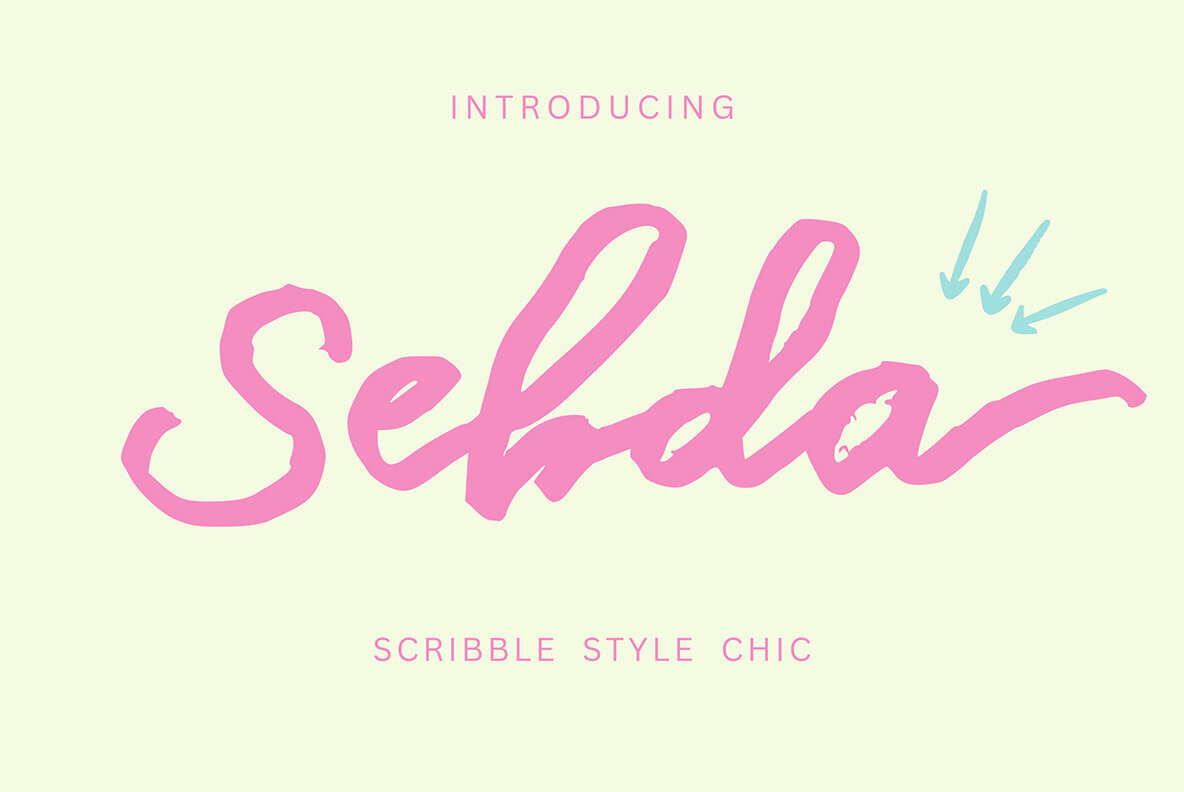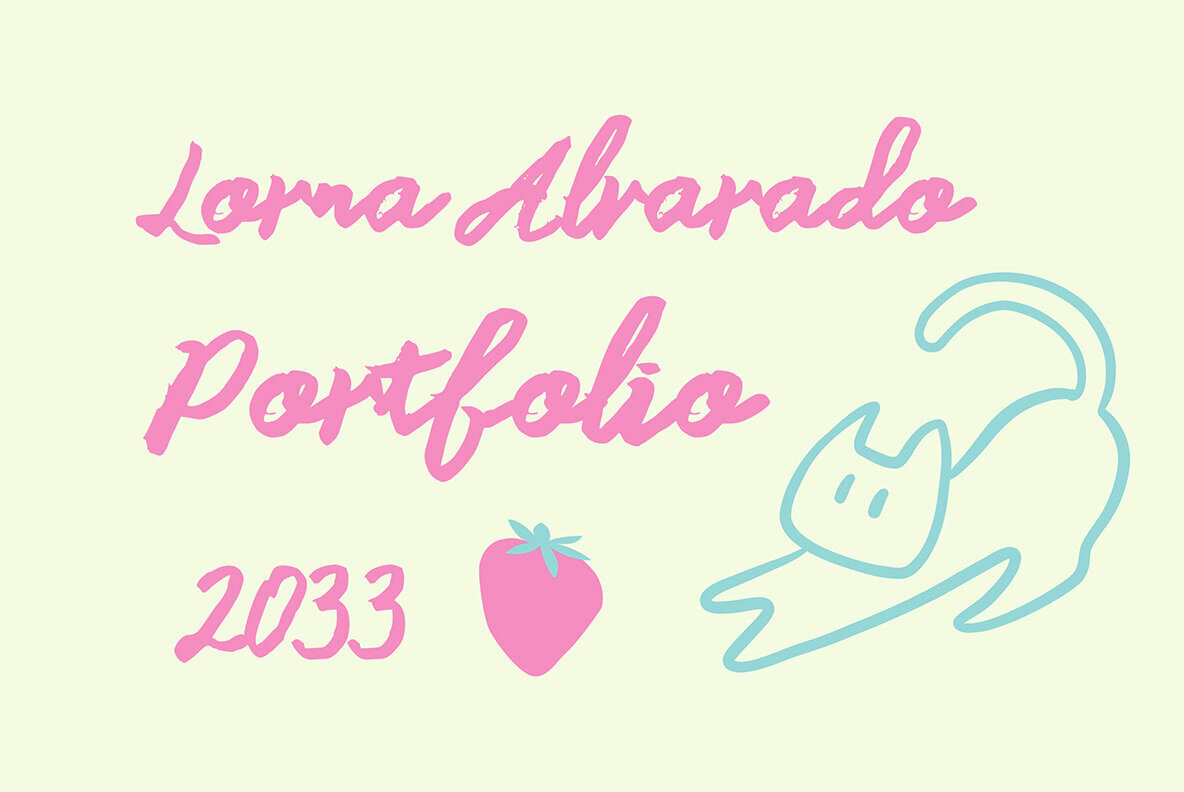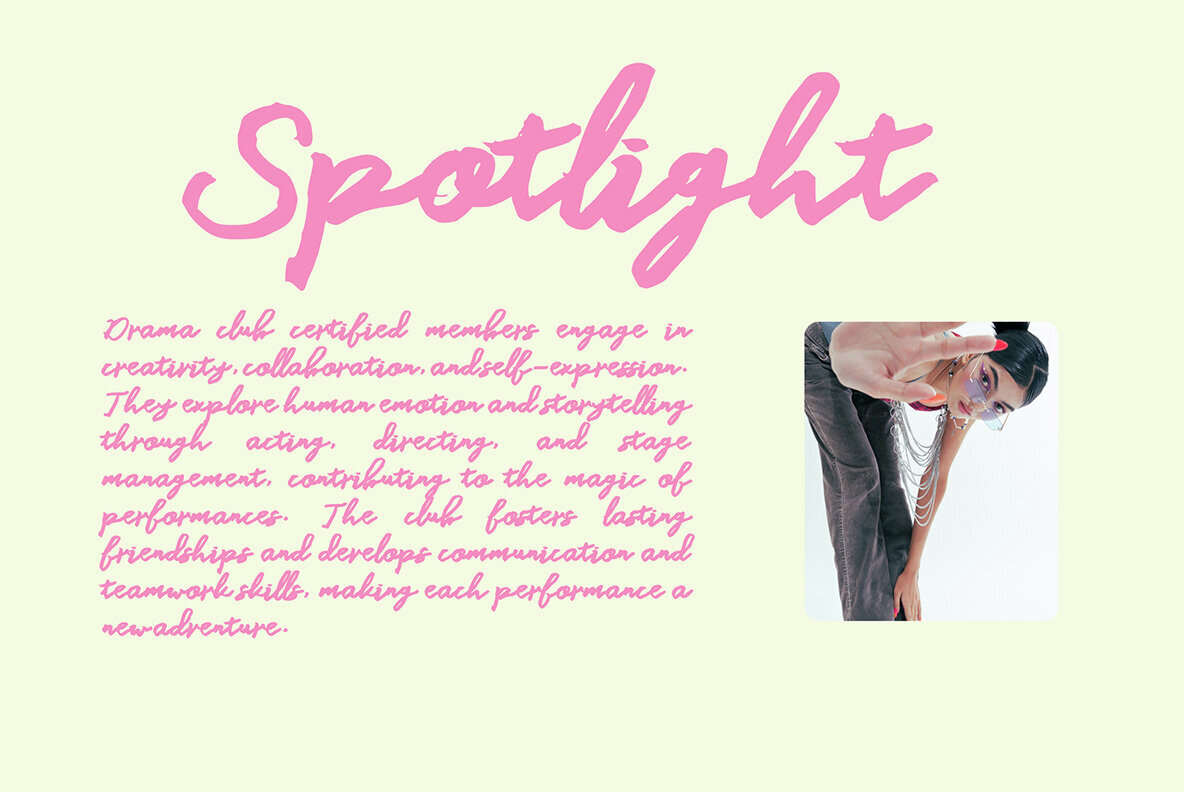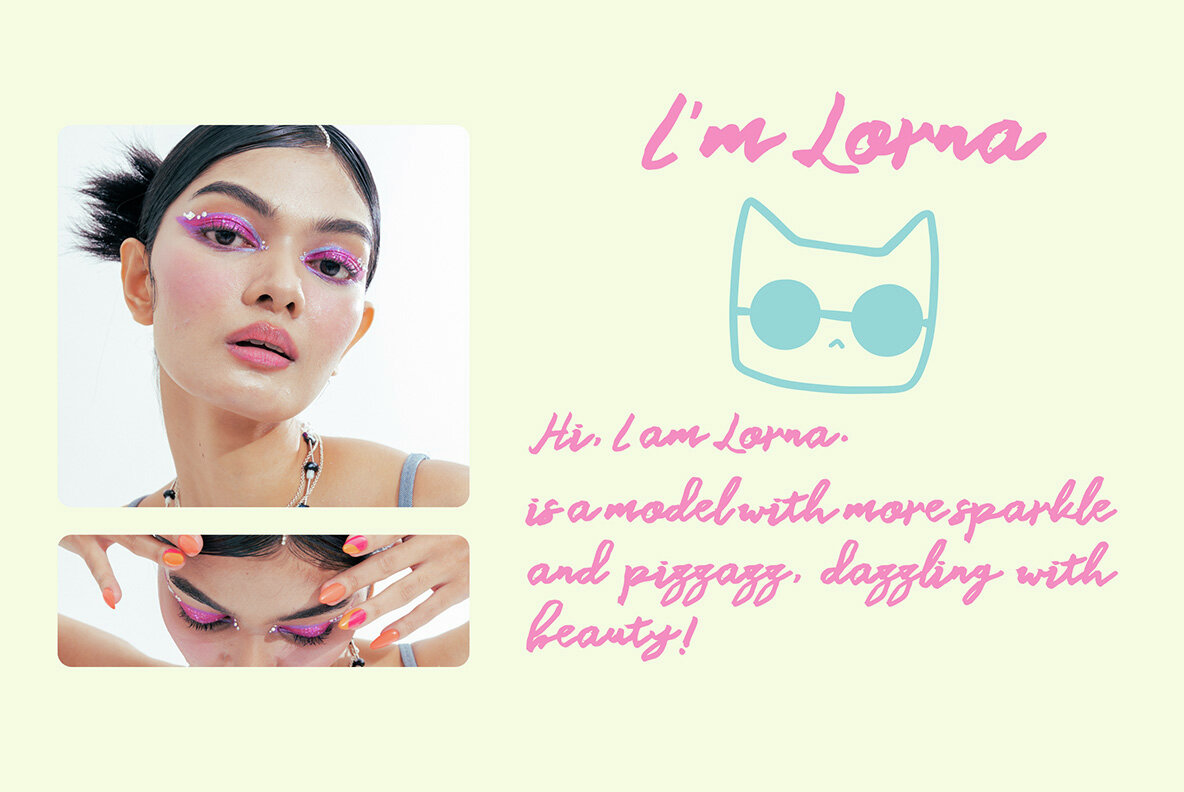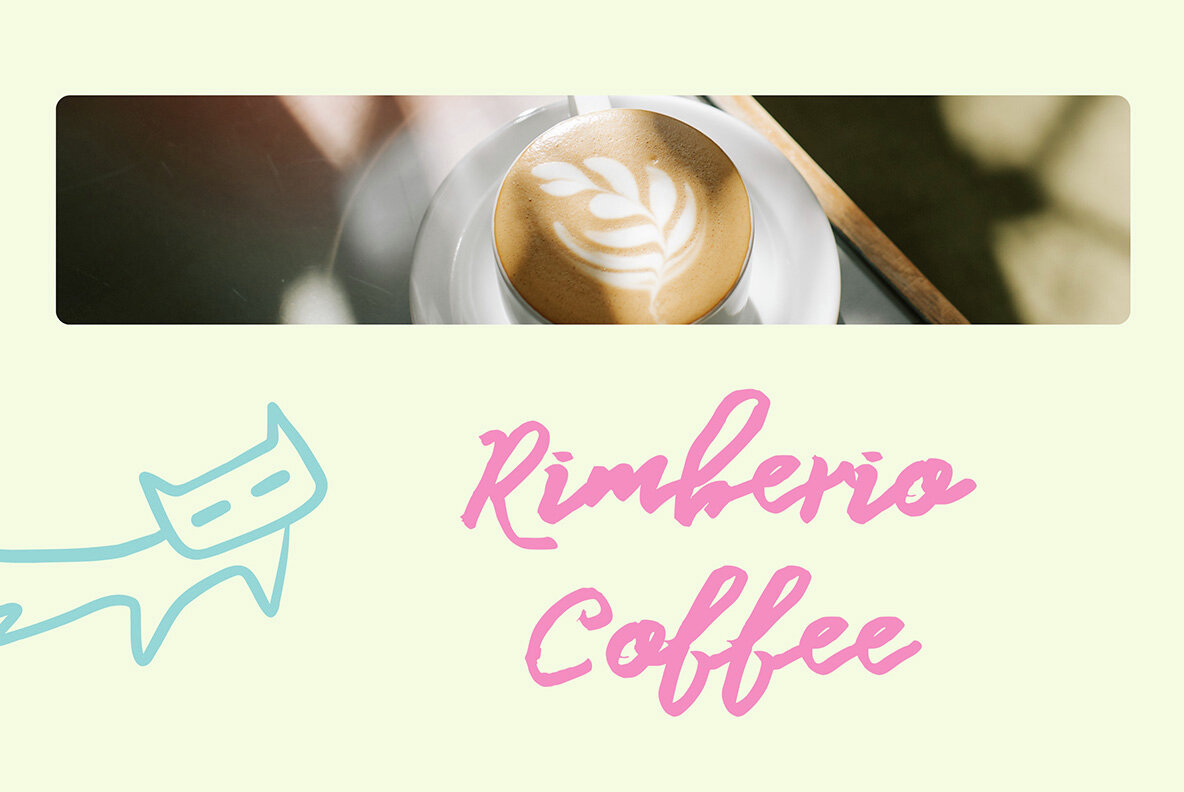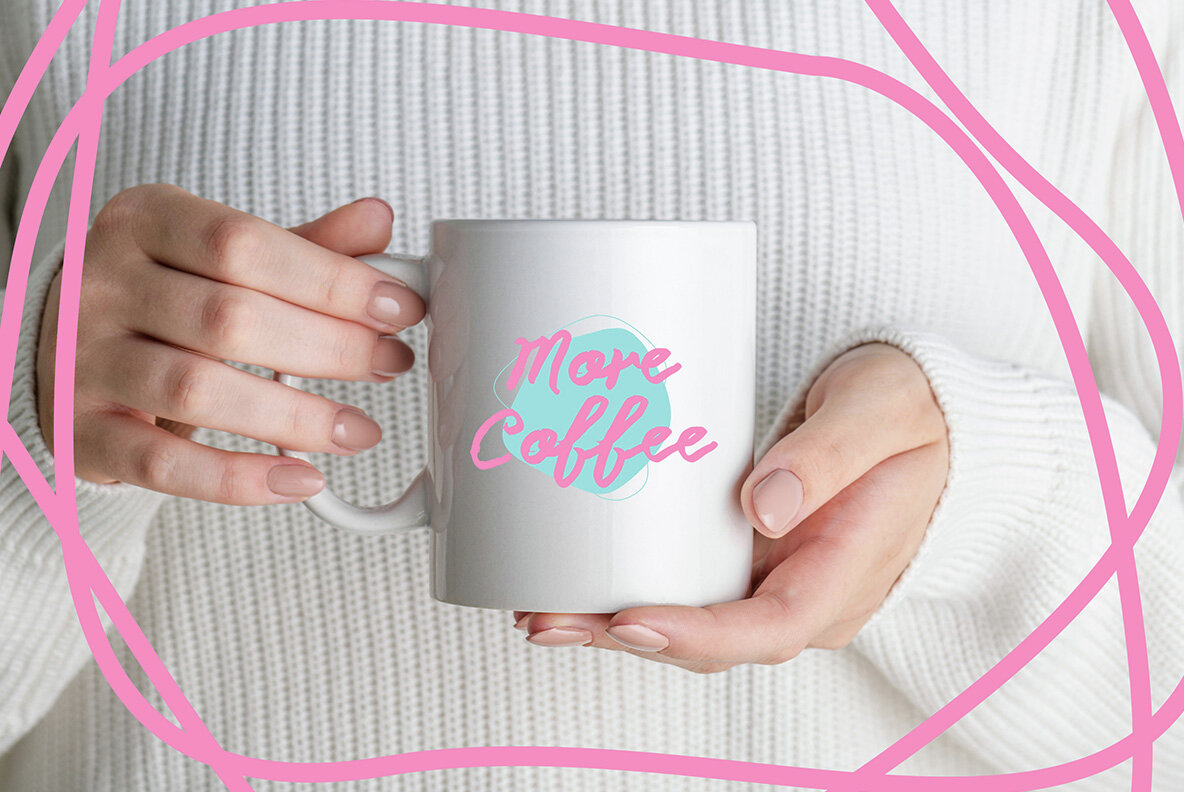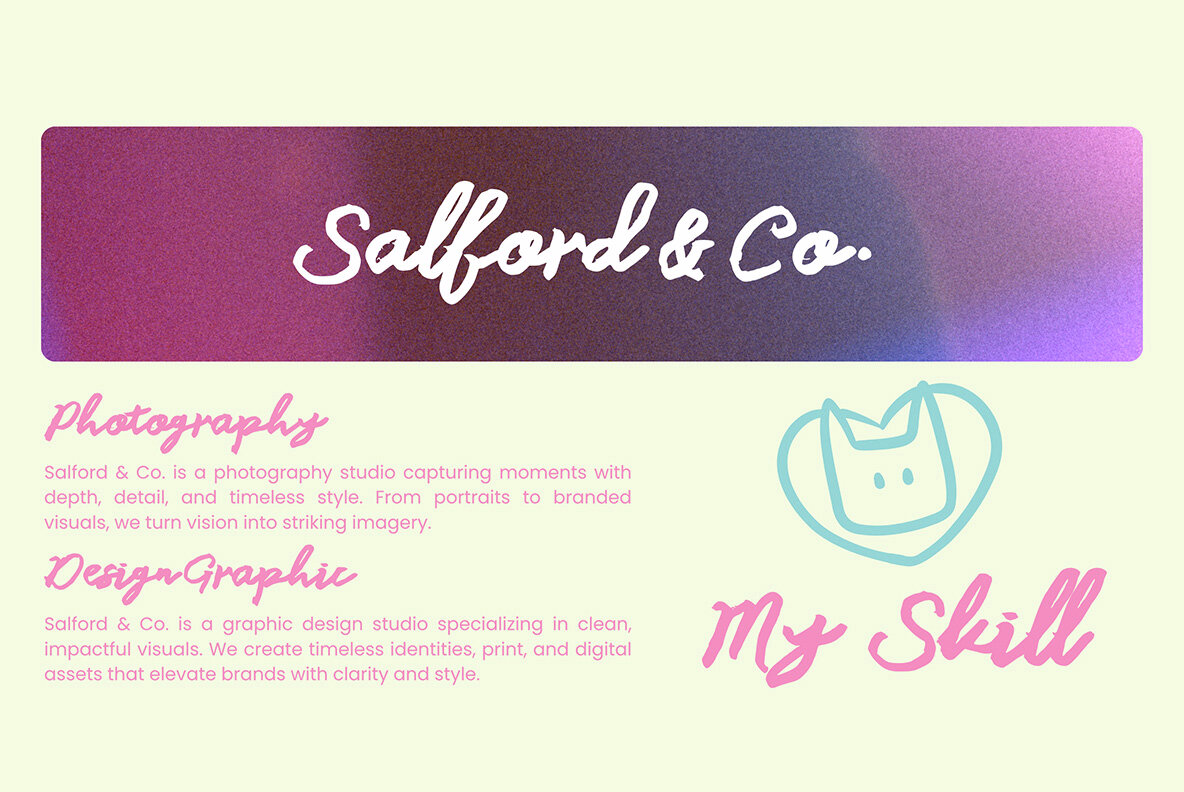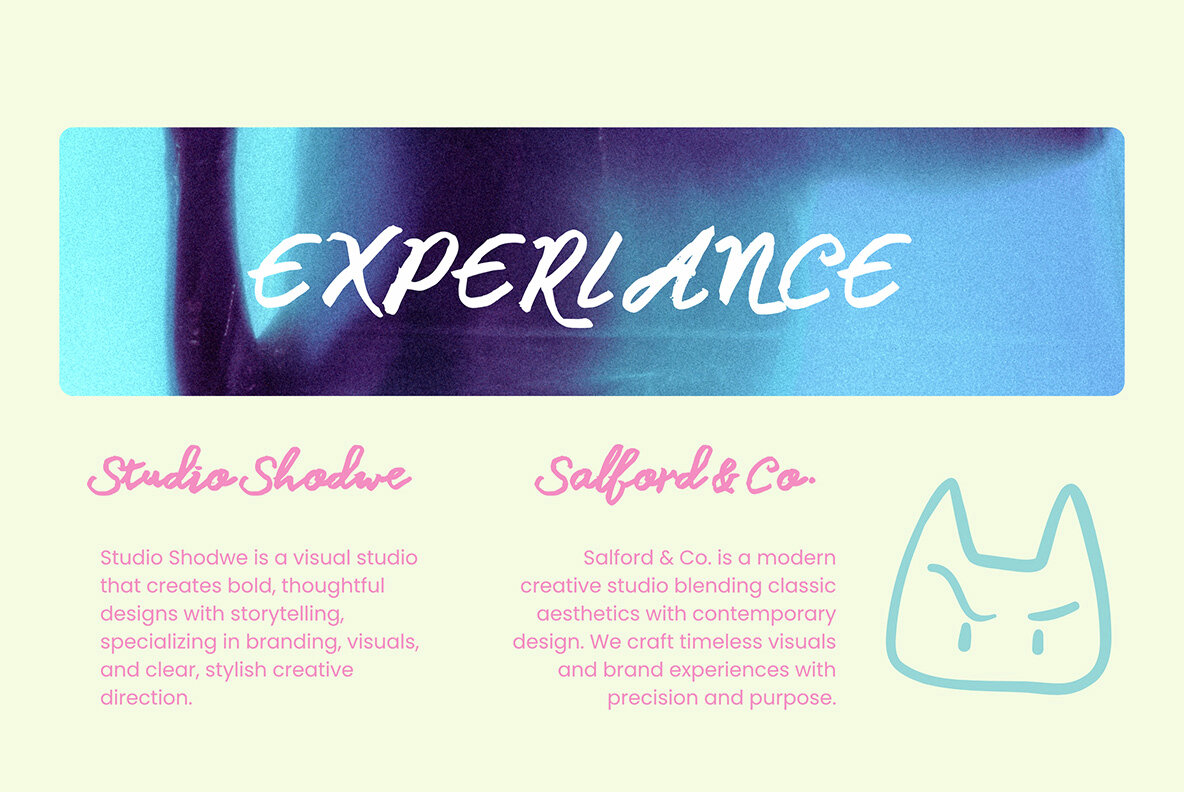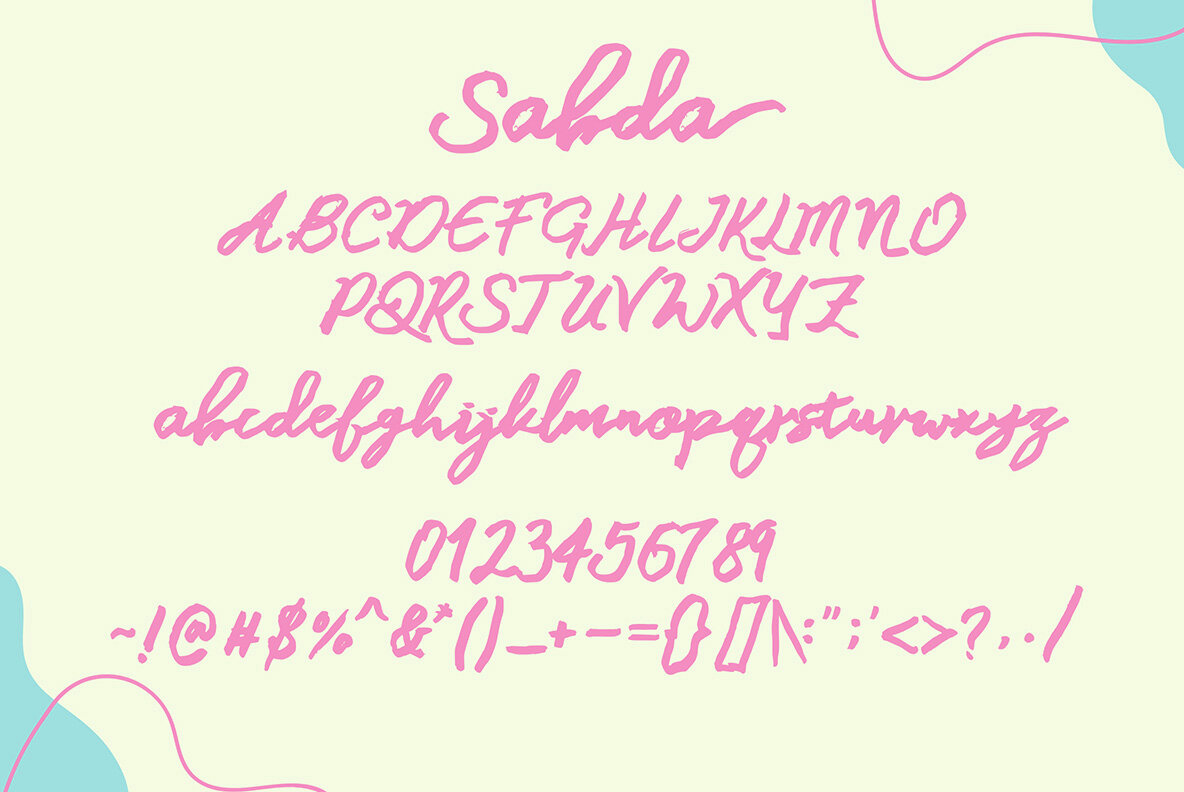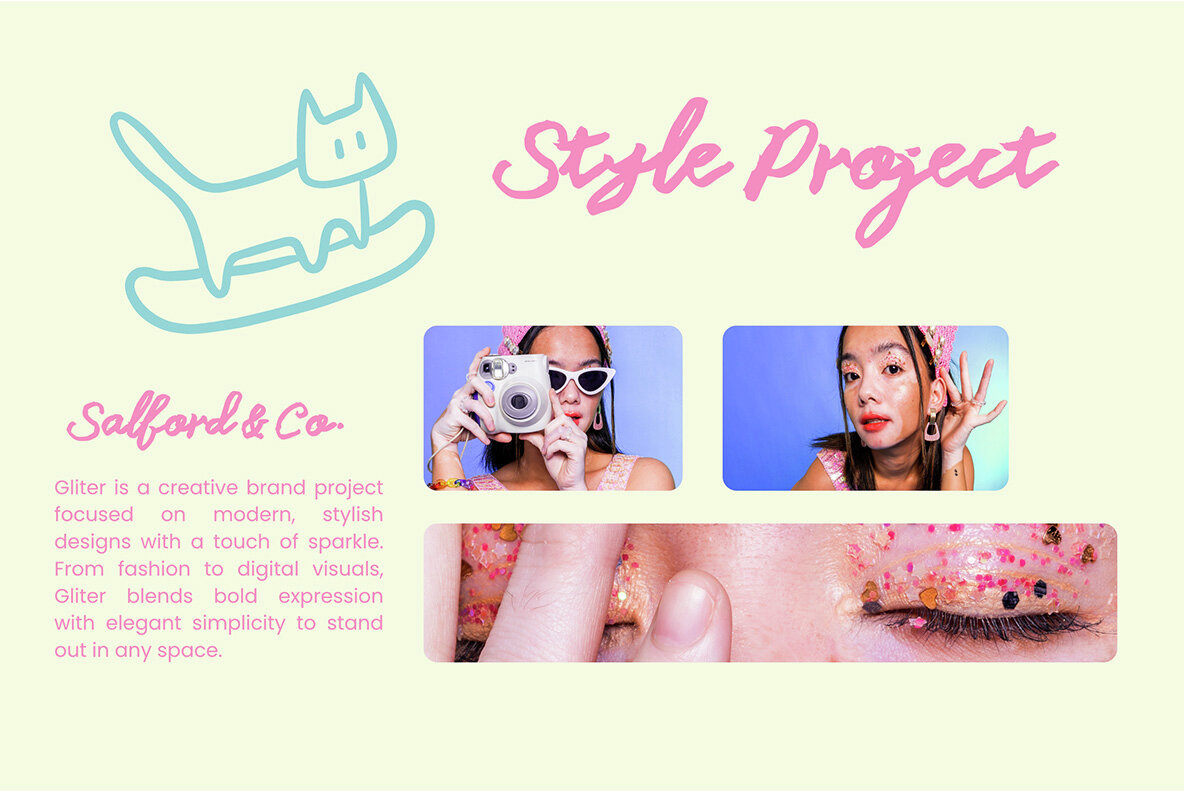
Sebda Font
Sebda
Sebda embarks on a journey of typographic storytelling with its bold ink marker style. It's endowed with a natural flow, delivering an intimate, handcrafted aesthetic to any creative endeavor. This script font is an exemplary choice for projects ranging from branding and packaging to posters and quotes, imbuing them with personality and flair.Sebda: The Expressive Ink Script Font
Distinctive Characteristics